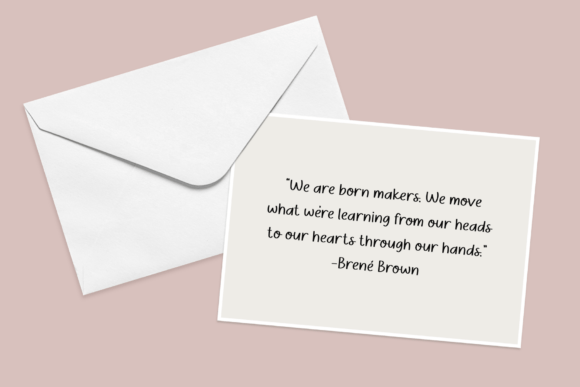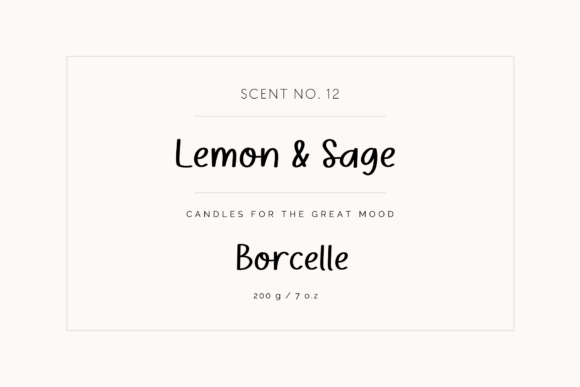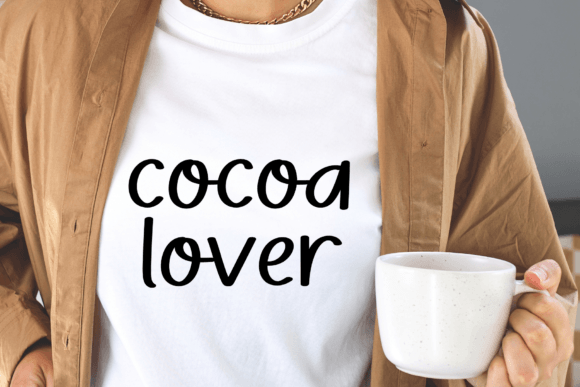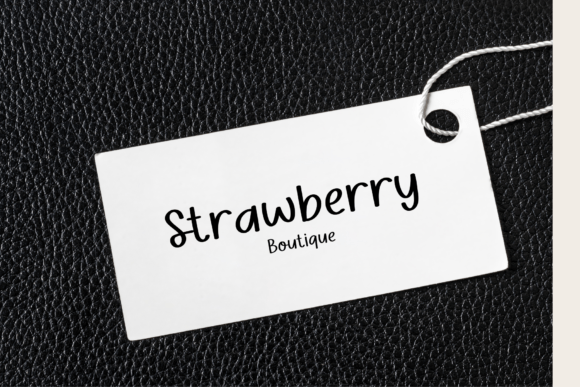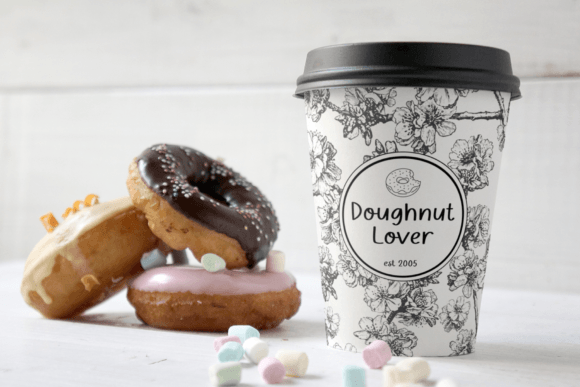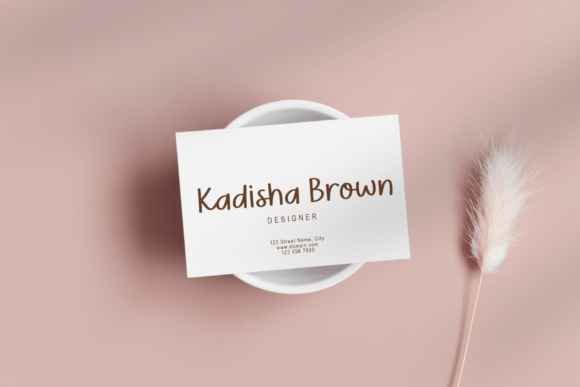
Introduction to Danish Pastry Font
Have you ever found yourself in the midst of a creative project, pouring your heart and soul into the details, only to realize that the perfect finishing touch is just out of reach? That’s where the Danish Pastry Font comes in – a stunning handwritten font that adds a touch of whimsy and romance to any design.
Whether you’re crafting a custom wedding invitation, creating a social media campaign, or designing a greeting card for a special occasion, the Danish Pastry Font is sure to elevate your project to the next level. Its versatility and high-quality design make it a valuable resource for designers of all levels, and with its transparent background, it’s easy to integrate into any creative project.
Key Features of Danish Pastry Font
- Unique, hand-drawn design with a transparent background for easy customization
- Perfect for use in digital and print media, including logos, branding, and packaging design
Honest Review: Danish Pastry Font
As a designer, I’m always on the lookout for high-quality fonts that can elevate my creative projects. Recently, I stumbled upon the Danish Pastry Font, and I must say, it’s a delightful find. ✨
- Unique design:** The Danish Pastry Font features a charming, hand-drawn aesthetic that’s reminiscent of traditional Danish pastries.
- Transparent background:** The font’s transparent background allows for easy layering and customization, making it perfect for creative projects that require a touch of whimsy.
While the Danish Pastry Font is a great addition to any design arsenal, I did encounter a few limitations ⚠️:
- Limited character set:** The font’s character set is relatively limited, which may not be suitable for projects that require a wide range of characters.
- Not suitable for small text:** Due to its intricate design, the font may not be ideal for small text sizes, as the details may become difficult to read.
Overall, I’m impressed with the Danish Pastry Font’s unique design and free availability. While it may have some limitations, it’s a great resource for designers looking to add a touch of whimsy to their creative projects.
The Danish Pastry Font is a high-quality design resource ideal for creative projects that require a unique and elegant touch. This font offers a transparent background, making it easy to customize and combine with other design elements.
The Danish Pastry Font is ideal for:
- Branding and marketing materials.
- Food and lifestyle publications.
Can I use the Danish Pastry Font with a transparent background, and will it work with my design project’s layout?
Yes, the Danish Pastry Font supports transparent backgrounds, allowing you to create stunning designs with a seamless look. The font is designed to work well with various layout styles, from modern and minimalist to traditional and elegant. With its high-quality design and flexibility, the Danish